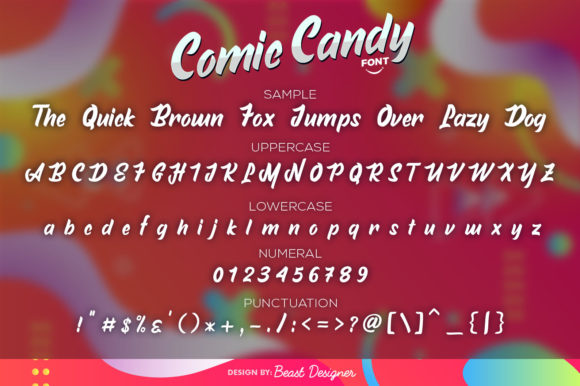
Introducing Comic Candy Font: The Sweetest Addition to Your Design Collection
Are you tired of using the same old fonts in your designs? Look no further! Comic Candy Font is a fun and playful script font that’s sure to elevate your design projects to the highest level. With its whimsical and eye-catching style, this font is perfect for a wide range of applications, from wedding designs and branding to headings, invitations, signatures, logos, labels, and more!
As a designer or crafter, you’re always on the lookout for fonts that can add a touch of personality and flair to your work. Comic Candy Font is the perfect solution. Its unique and playful style is sure to capture the attention of your audience and leave a lasting impression. Whether you’re creating wedding invitations, branding materials, or social media graphics, this font is sure to make your designs stand out from the crowd.
Key Features of Comic Candy Font
- Fun and Playful Style: Comic Candy Font has a whimsical and eye-catching style that’s perfect for designs that require a touch of personality and flair.
- Versatile: This font is suitable for a wide range of design projects, from wedding designs and branding to headings, invitations, signatures, logos, labels, and more.
- Elegant and Sophisticated: Despite its playful style, Comic Candy Font has an elegant and sophisticated feel that’s perfect for high-end designs.
- Easy to Read: This font is clear and easy to read, making it perfect for designs that require a high level of legibility.
Uses for Comic Candy Font
So, what can you use Comic Candy Font for? The possibilities are endless! Here are a few ideas to get you started:
- Wedding Designs: Use Comic Candy Font to create beautiful wedding invitations, wedding stationery, and wedding decorations.
- Branding: This font is perfect for creating brand identities, logos, and marketing materials that require a touch of personality and flair.
- Headings and Titles: Use Comic Candy Font to add a touch of whimsy and elegance to your headings and titles.
- Invitations: Create eye-catching invitations for parties, events, and celebrations using Comic Candy Font.
- Signatures and Logos: Use this font to create unique and memorable signatures and logos that reflect your personality or brand.
Why Choose Comic Candy Font?
So, why should you choose Comic Candy Font for your design projects? Here are a few reasons:
- Unique Style: Comic Candy Font has a unique and playful style that’s sure to make your designs stand out from the crowd.
- High-Quality: This font is designed to high standards, ensuring that it’s clear, legible, and easy to read.
- Versatile: Comic Candy Font is suitable for a wide range of design projects, making it a great addition to your font collection.
- Elegant and Sophisticated: Despite its playful style, Comic Candy Font has an elegant and sophisticated feel that’s perfect for high-end designs.
| Font Name | Comic Candy Font |
| Author | Beast Designer |
In conclusion, Comic Candy Font is a fun and playful script font that’s perfect for designers and crafters who want to add a touch of personality and flair to their work. With its whimsical and eye-catching style, this font is suitable for a wide range of design projects, from wedding designs and branding to headings, invitations, signatures, logos, labels, and more. So why not give Comic Candy Font a try and see how it can elevate your designs to the highest level?